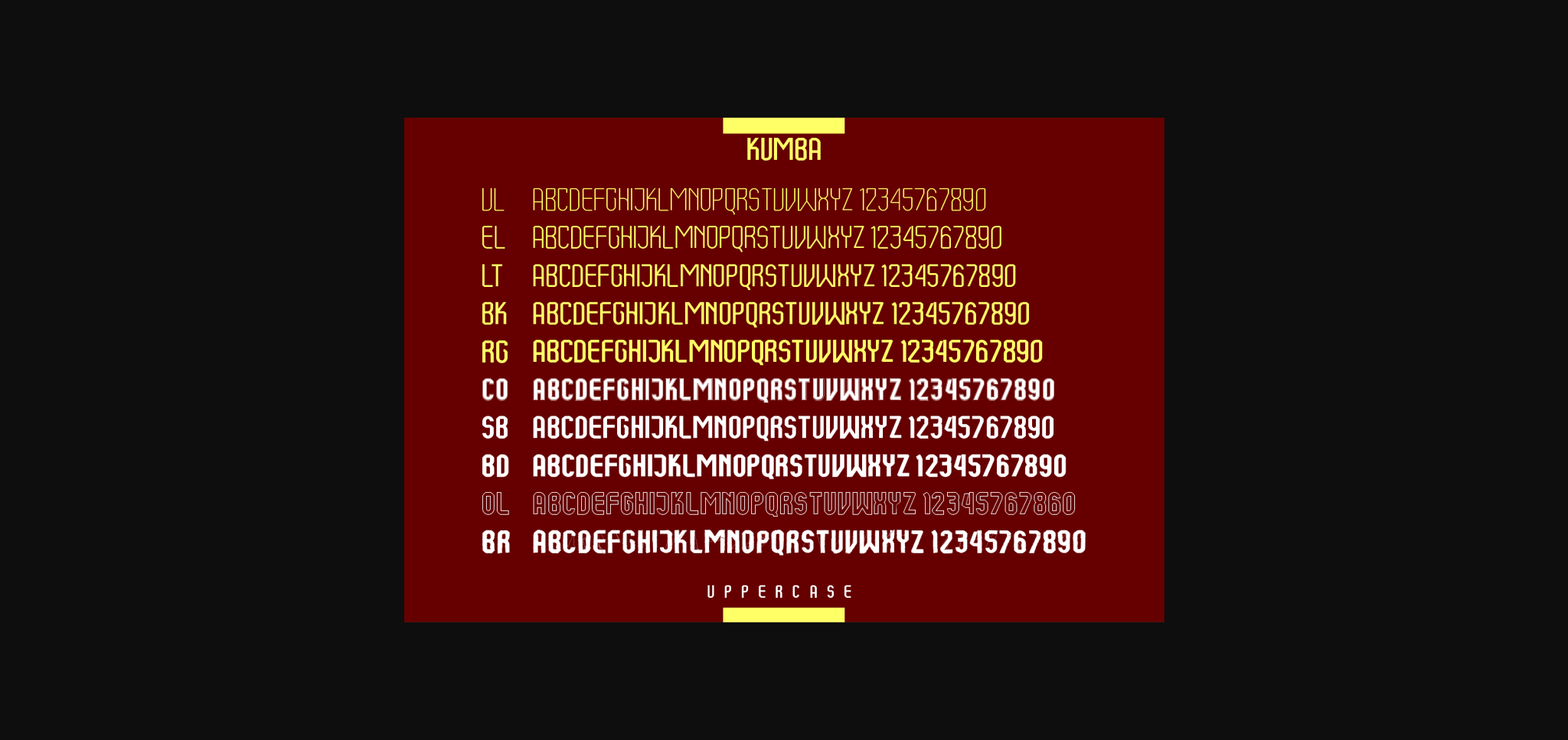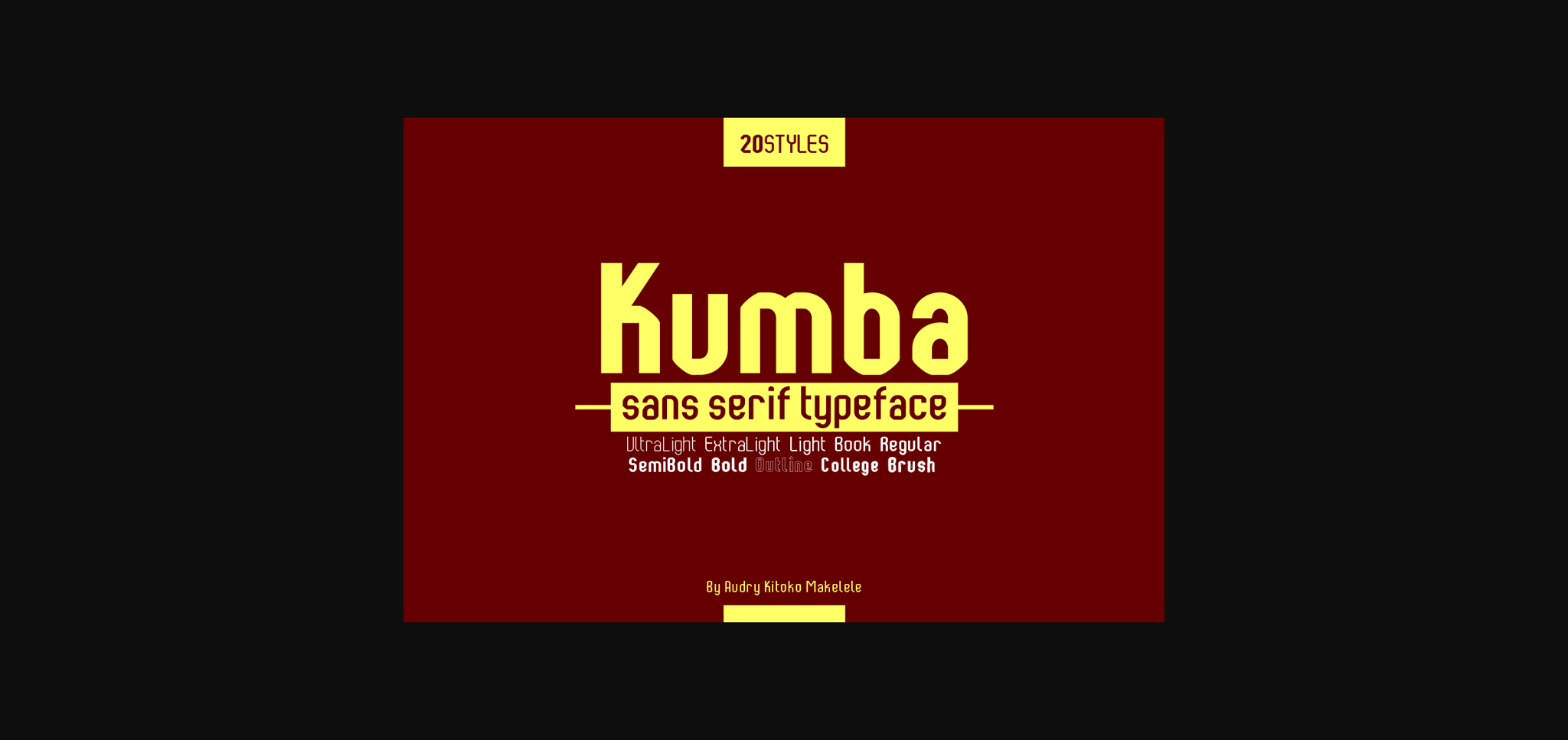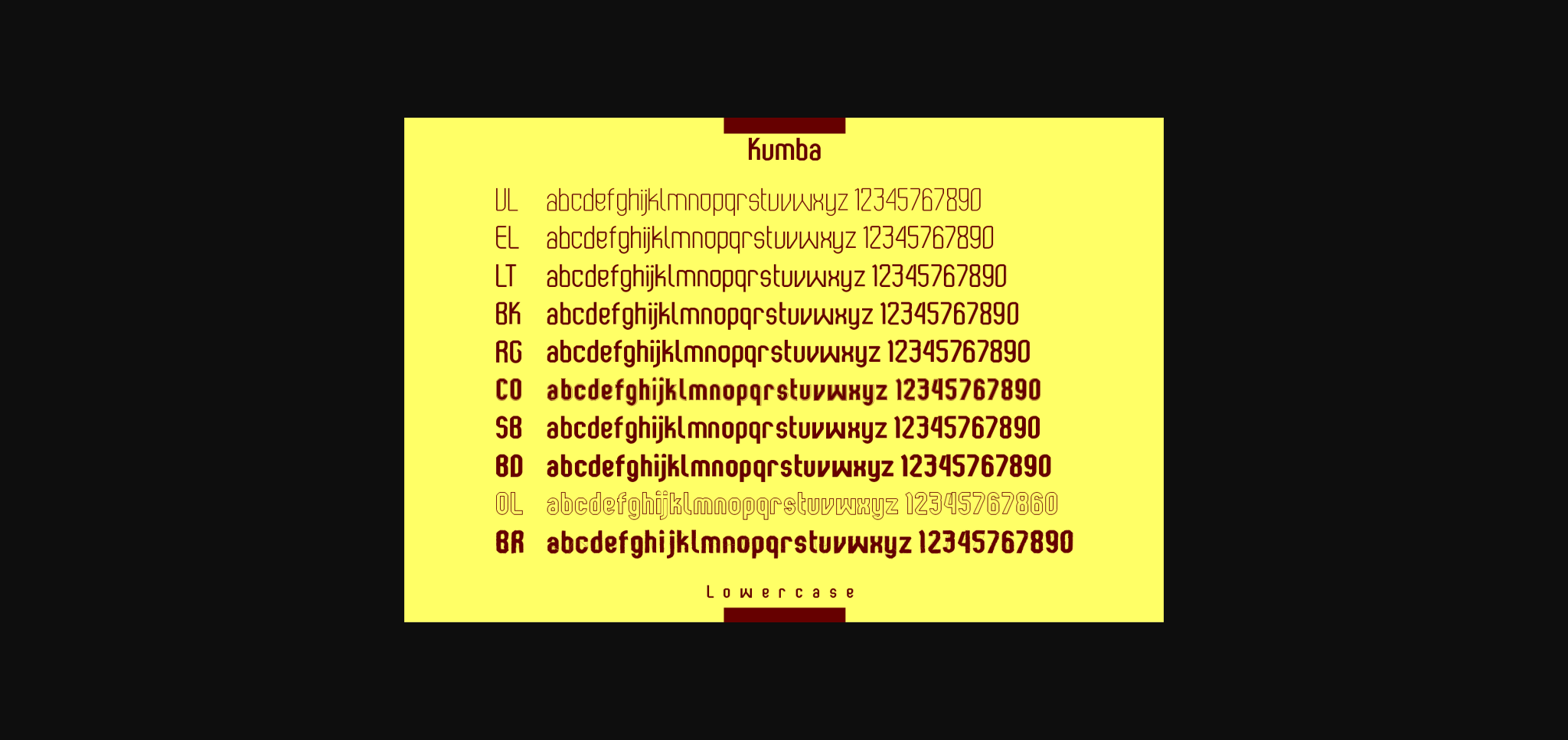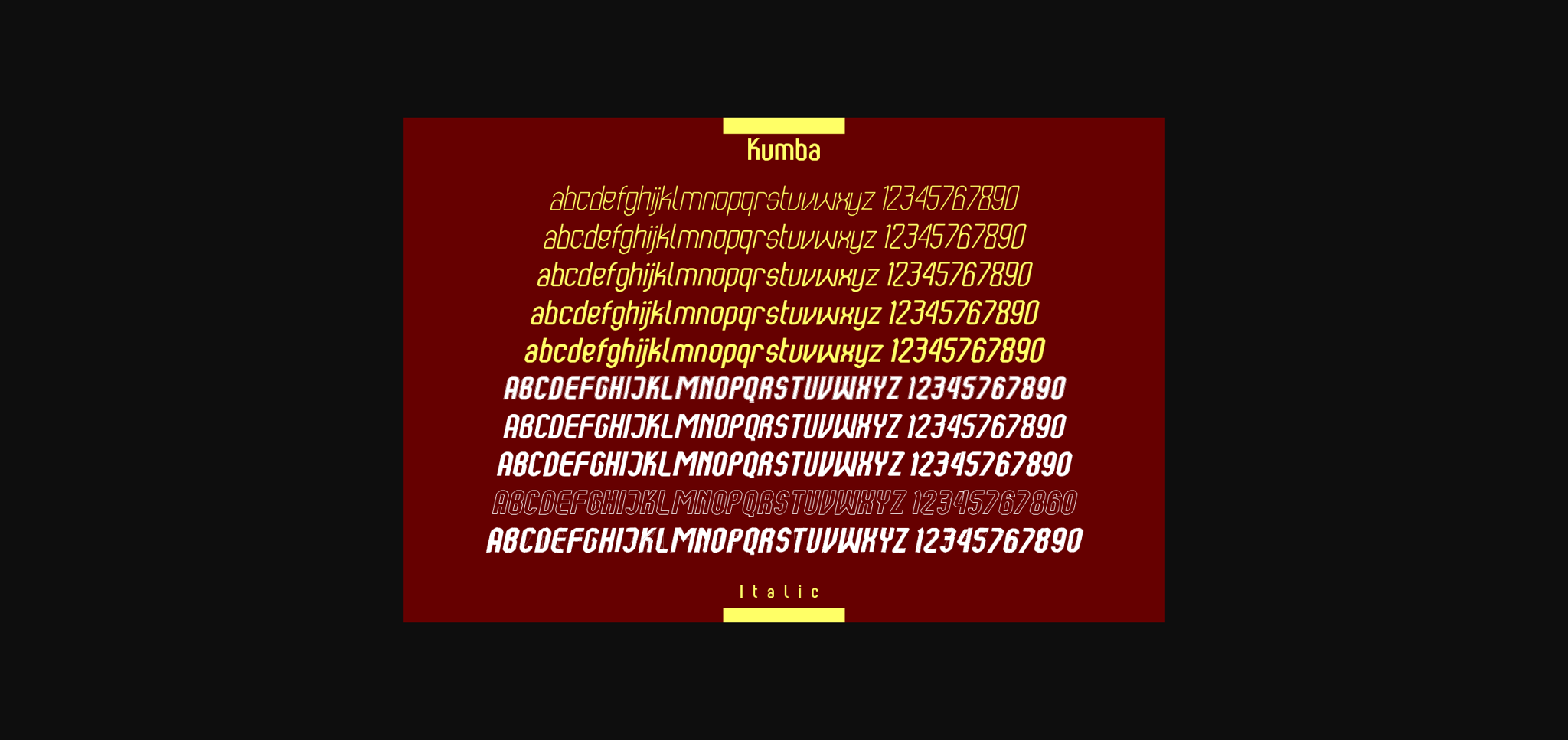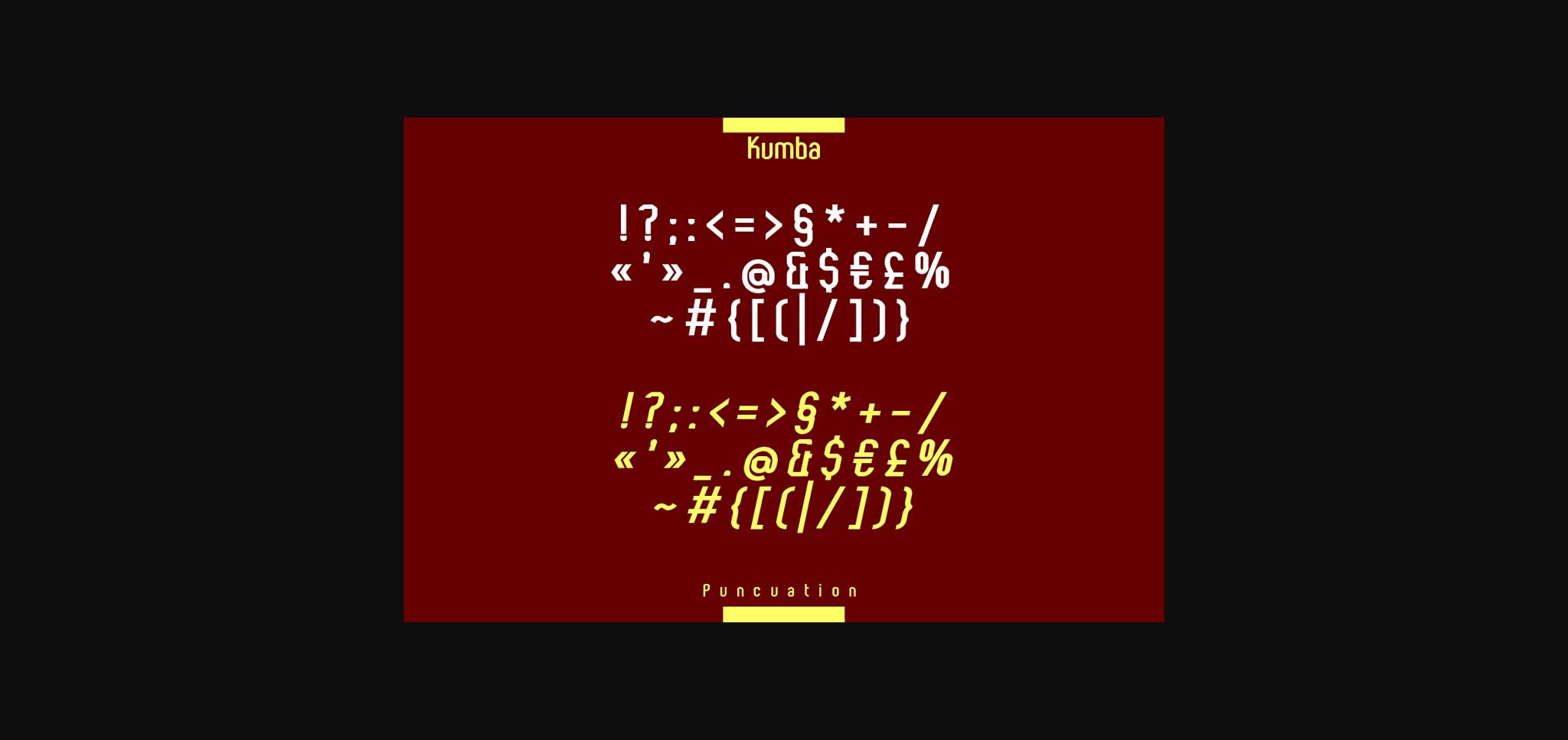
Kumba Font
About Kumba Font
Kumba is inspired by classic typography and brings its own unique style to any design project. This fantastic sans serif font is best suited for headlines of all sizes, as well as for blocks of text that have both maximum and minimum variations. Whether it’s for web, print, moving images or anything else – Kumba will look spectacular.